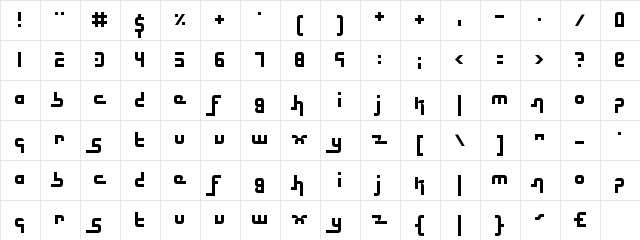
Electric Butterflies Regular
| Designer | Darrell Flood |
Design Context for Electric Butterflies Typeface
Electric Butterflies has a distinctly futuristic character, with geometric precision and clean angles that feel at home in technology, gaming, and sci-fi contexts.